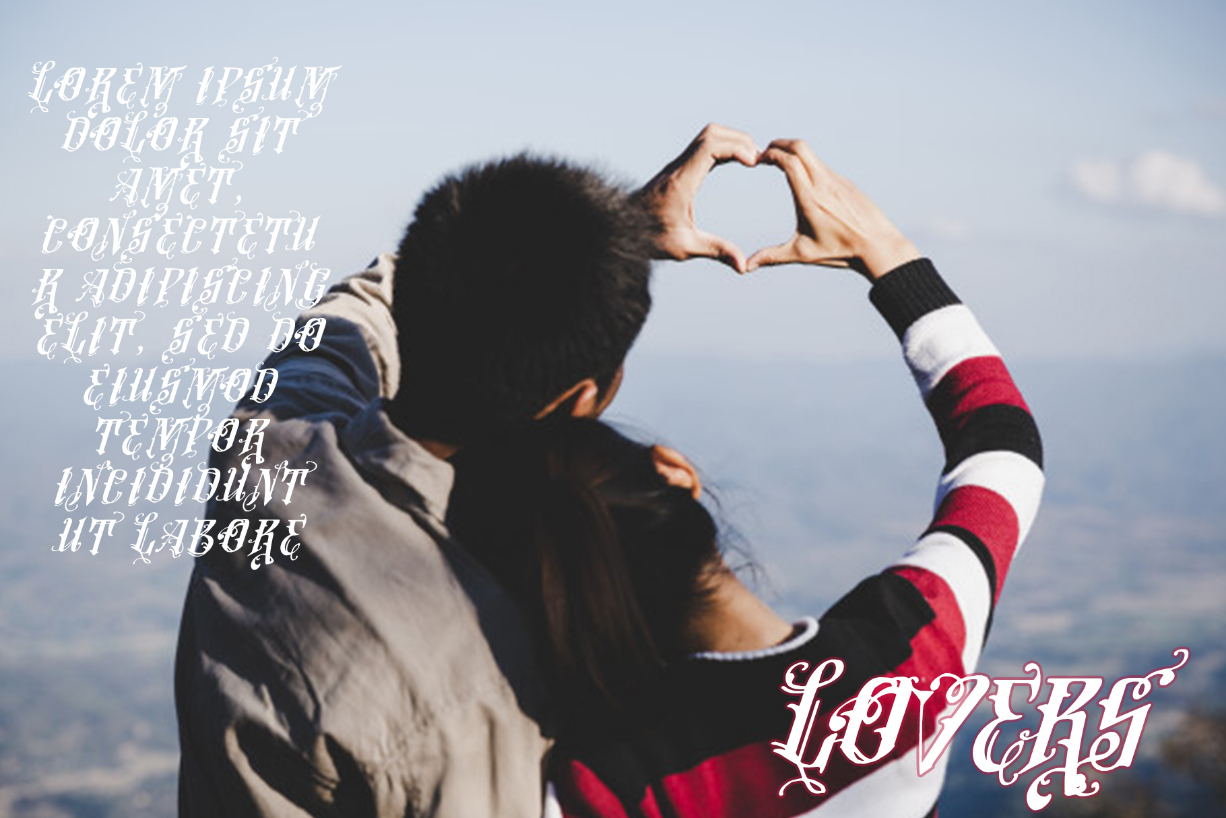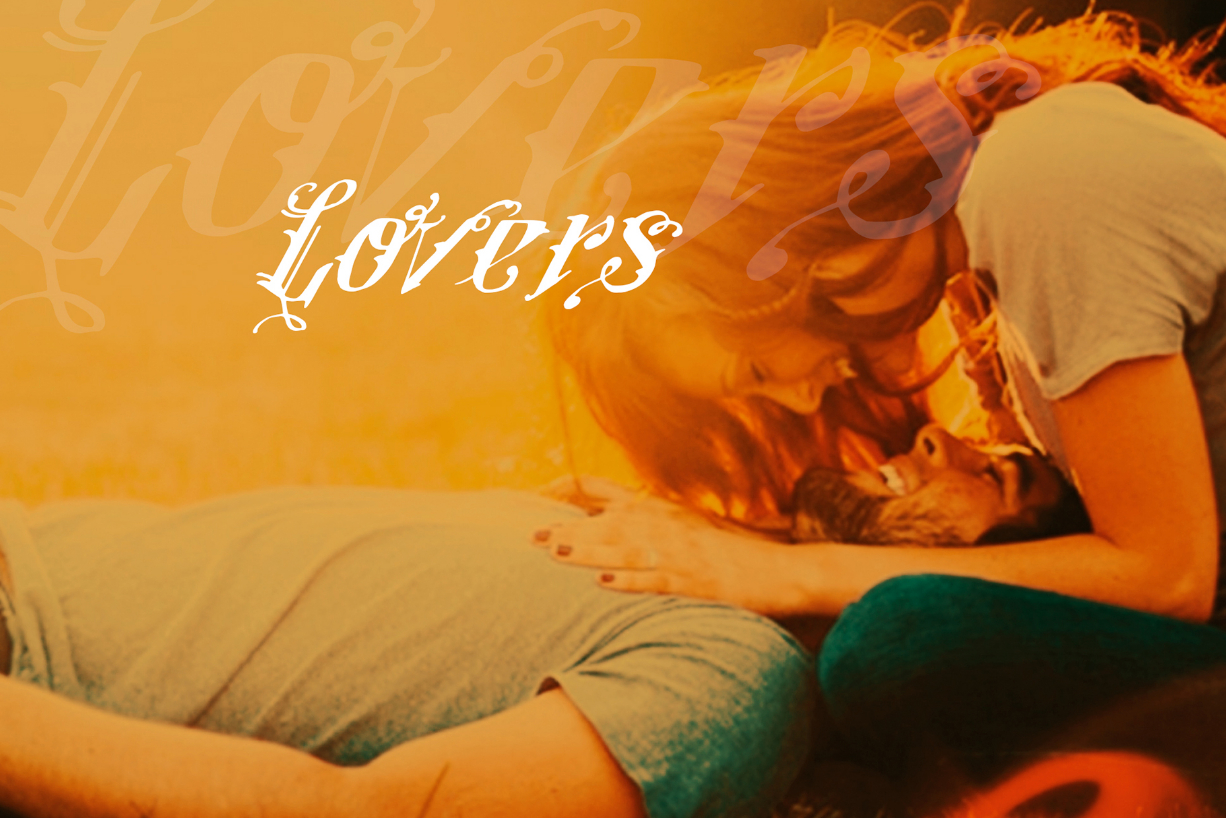
Lovers Font
About Lovers Font
Lovers is a great blackletter font. It has a unique look and feel that will take your designs to the next level. Lovers is the perfect font for making original and outstanding designs.